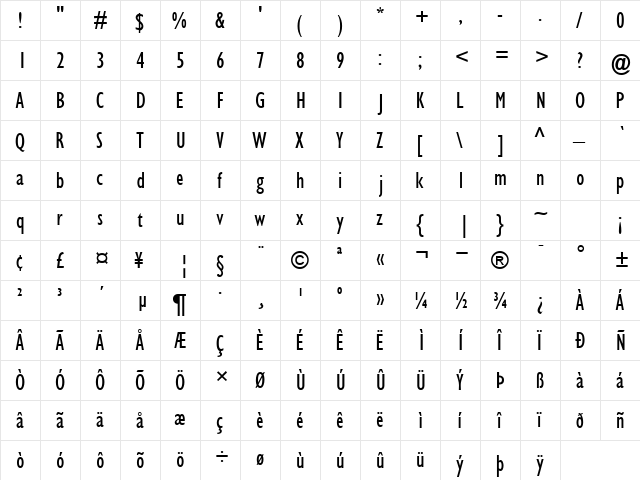
GimletCondSSK Regular
Design Context for GimletCondSSK Typeface
GimletCondSSK is a composed and adaptable typeface that performs quietly and consistently across a wide range of design contexts. Its narrow stance lets it pack a punch even in space-constrained designs.